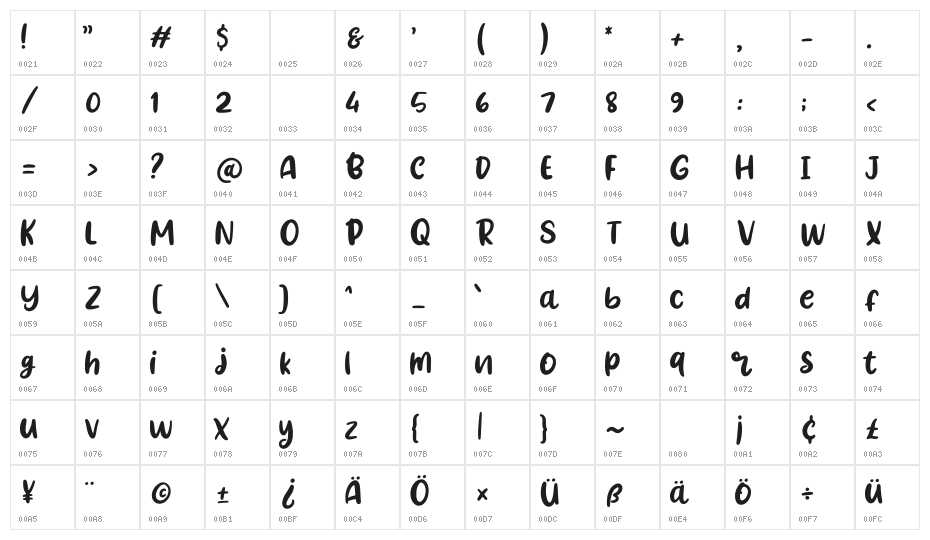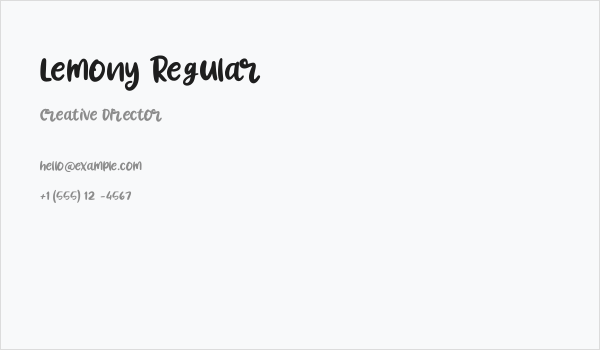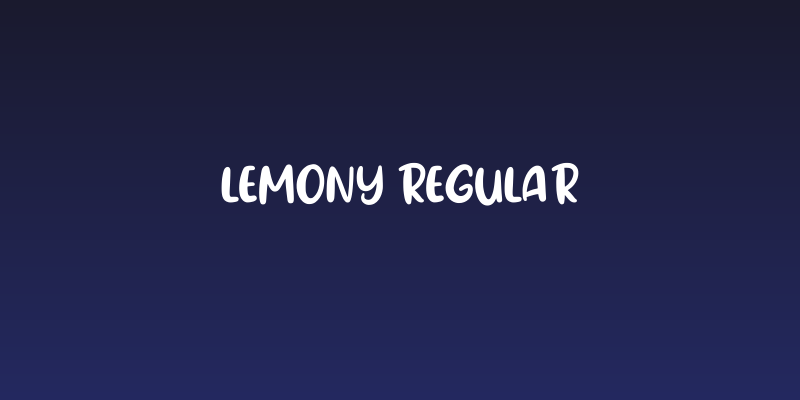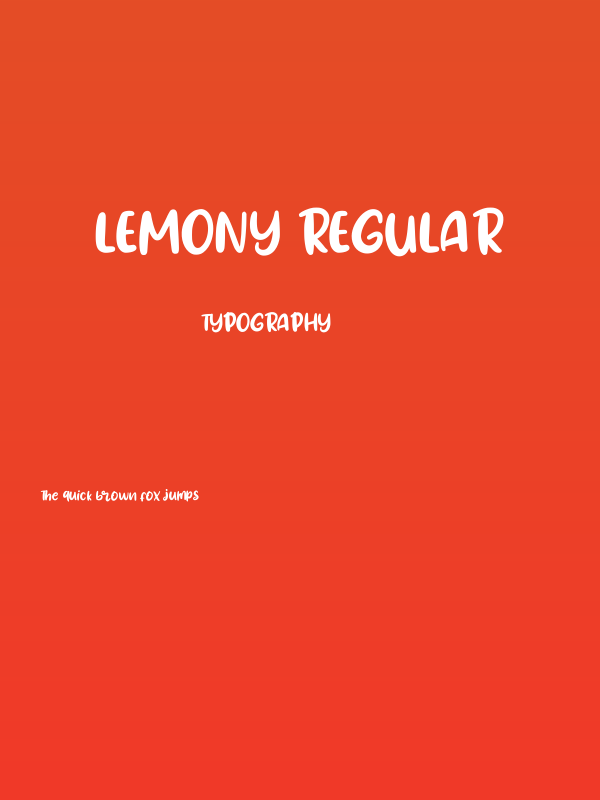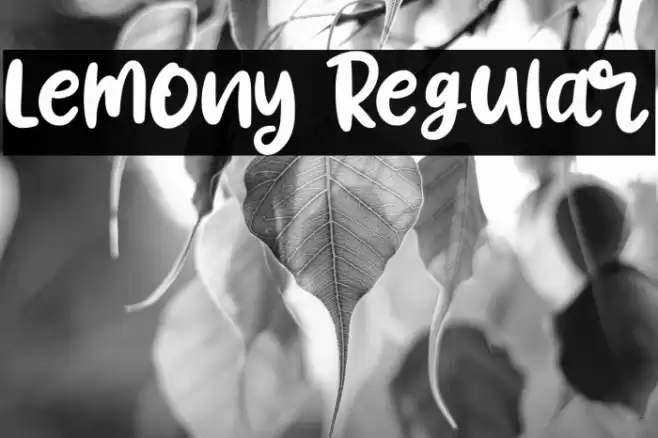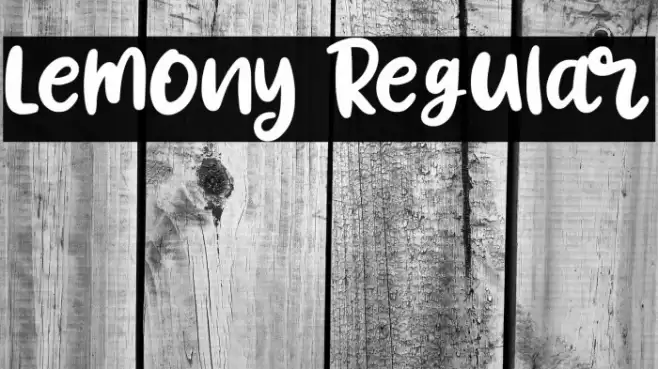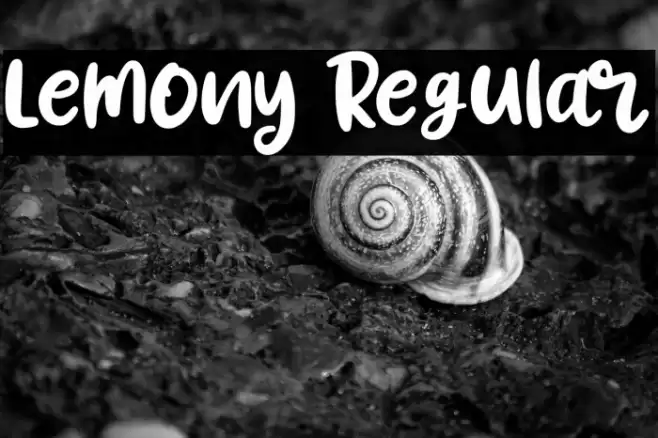
Lemony Regular Font
Lemony Regular Description
This font features a playful and bold handwritten style, characterized by its smooth, flowing curves and slightly irregular shapes. The letters have a lively and energetic appearance, with a consistent stroke width that gives it a cohesive look. The uppercase and lowercase letters maintain a harmonious balance, while the numbers and special characters complement the overall design. Its informal and friendly vibe makes it suitable for projects that require a personal touch.
| Proposed Projects | Ideal for greeting cards, children's books, playful branding, and social media graphics. |